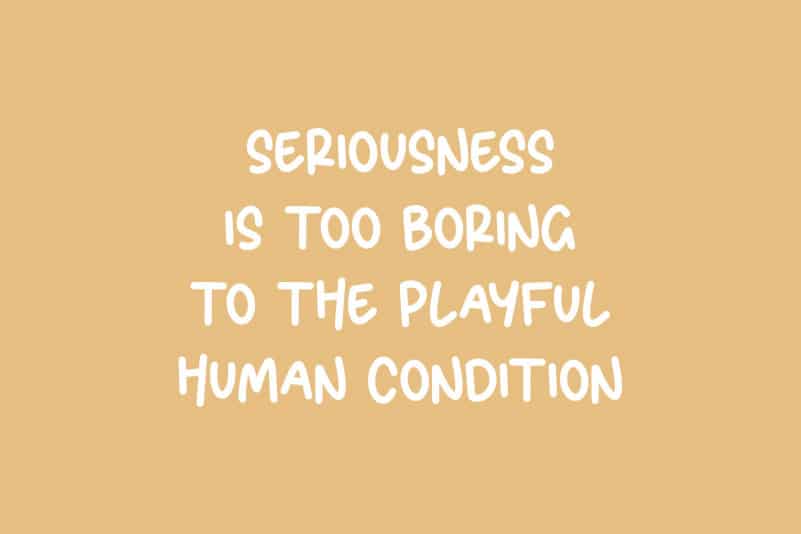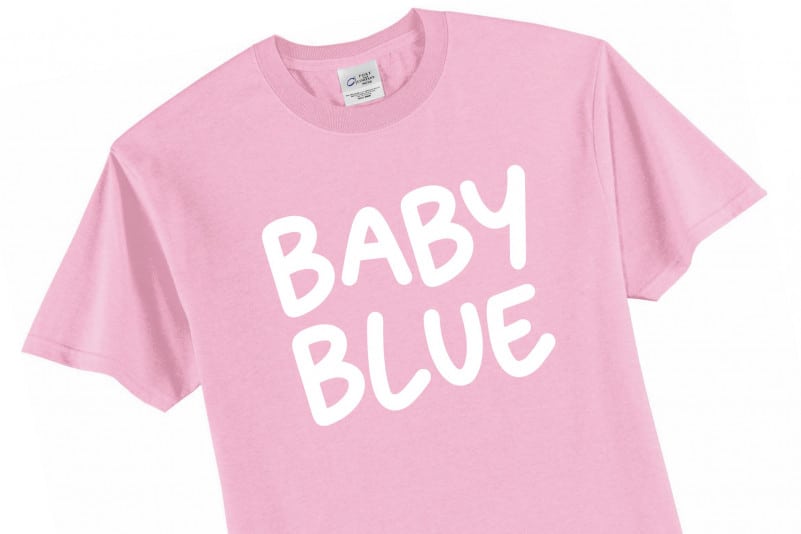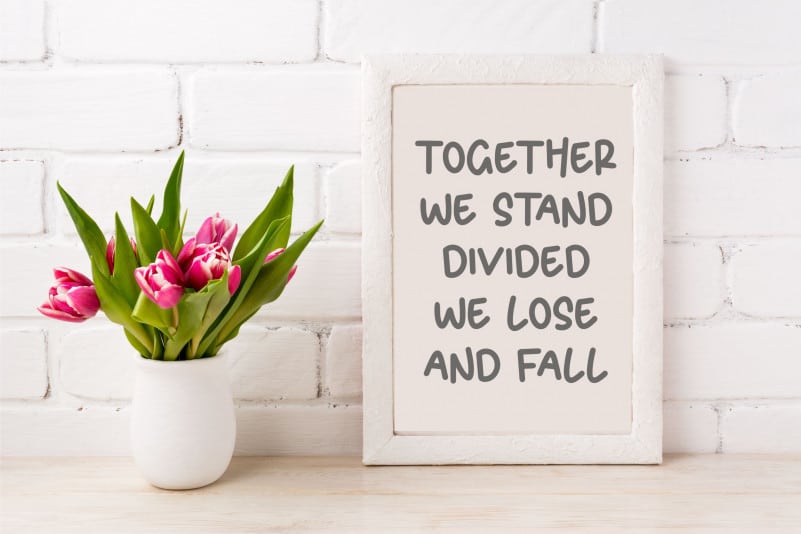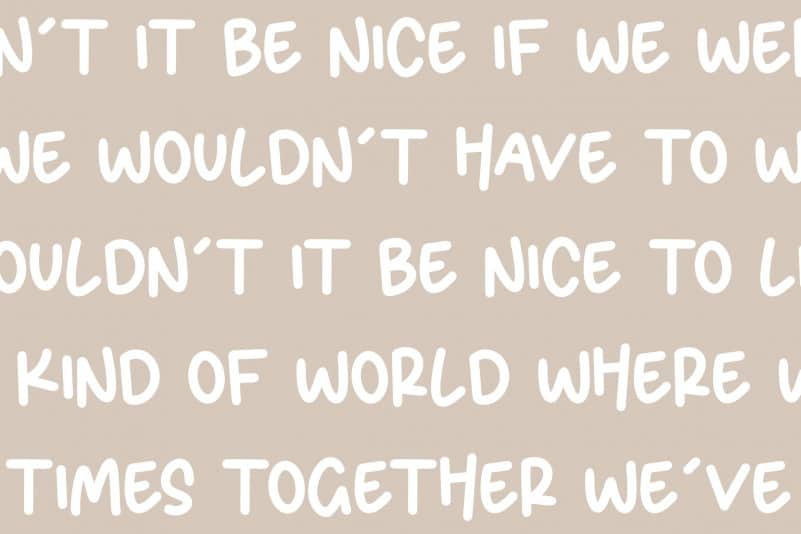
BREAKBONE Modern Playful Font
Proudly Present, BREAKBONE Modern Playful Font.
BREAKBONE is a New Modern Playful Font.
BREAKBONE is perfect for product packaging, branding project, megazine, social media, wedding, or just used to express words above the background.